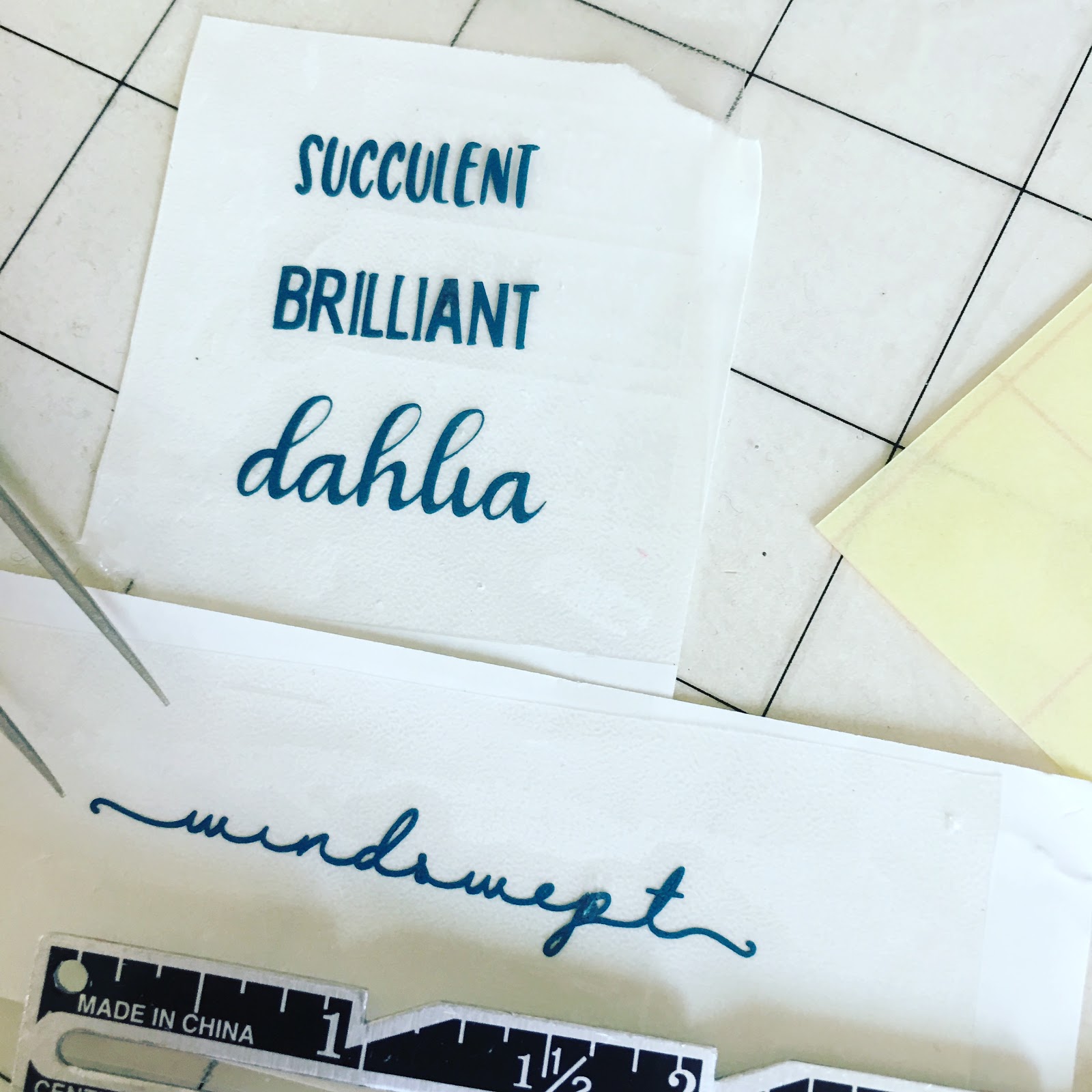
Best Way To Cut Small Font On Cricut . I have been there too. The vinyl may peel while cutting. How to cut and weed small, tiny fonts with your cricut machine. When looking for the best fonts for cutting small text on your cricut, there are many different kinds of cricut text fonts you can use and approaches you can take. You can see in the photo above that even small the cricut machine has plenty of space to follow the cut path without the blade overlapping the cut lines. This method of cutting small. But if you're wondering where to find the best fonts for small text in cricut, envato is a great option. As a cricut crafter, you may have attempted to cut teeny, tiny letters and then given up because it is just too frustrating. Some of the best fonts you can use for small vinyl cutting are sans serif font, cricut sans, and pacifico. Why is my vinyl peeling while cutting? Have you ever cut smaller text on your cricut machine and had the little letters pop off the vinyl and get all messed up? What vinyl works best for cutting small letters. The best fonts to use when making a small design are thick, chunky fonts. The best fonts for cutting small letters (cricut and free fonts): If you are planning a small font.
As a cricut crafter, you may have attempted to cut teeny, tiny letters and then given up because it is just too frustrating. If you are planning a small font. Why is my vinyl peeling while cutting? The best fonts to use when making a small design are thick, chunky fonts. How to cut and weed small, tiny fonts with your cricut machine. This method of cutting small. When looking for the best fonts for cutting small text on your cricut, there are many different kinds of cricut text fonts you can use and approaches you can take. Have you ever cut smaller text on your cricut machine and had the little letters pop off the vinyl and get all messed up? But if you're wondering where to find the best fonts for small text in cricut, envato is a great option. What vinyl works best for cutting small letters.